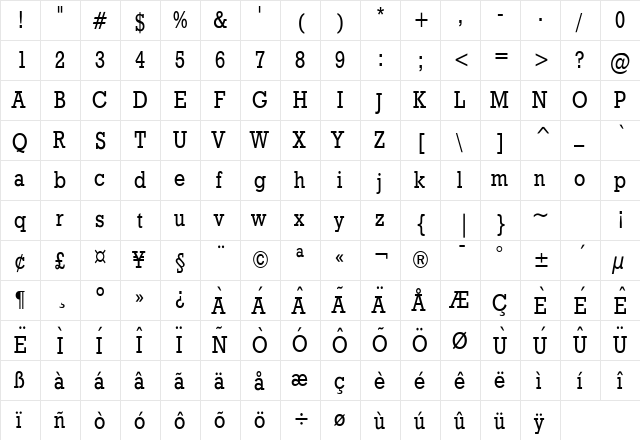
Geo 986 Condensed Normal
Design Context for Geo 986 Condensed Typeface
Geo 986 Condensed offers clean, dependable letterforms without strong stylistic allegiance, making it a practical choice for designers who need flexibility. Its narrow stance lets it pack a punch even in space-constrained designs.
Pro Tip: Use Geo 986 Condensed in both headline and body roles to test its range before committing to a single application.